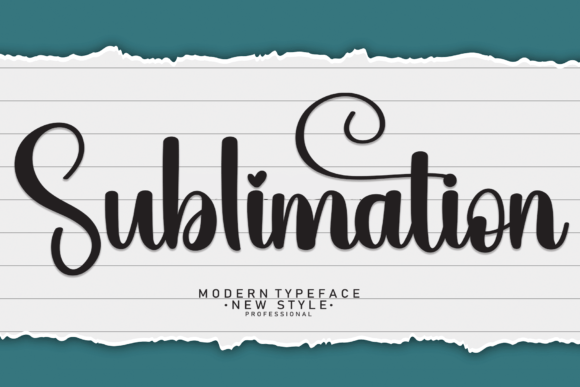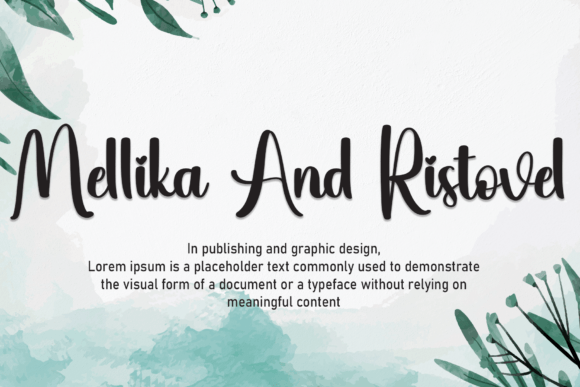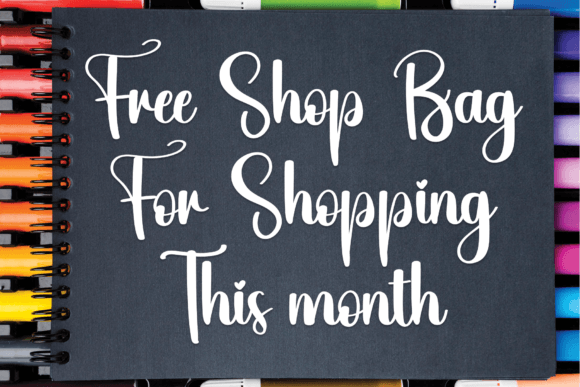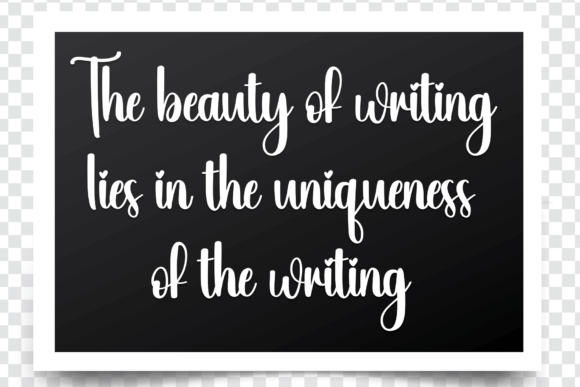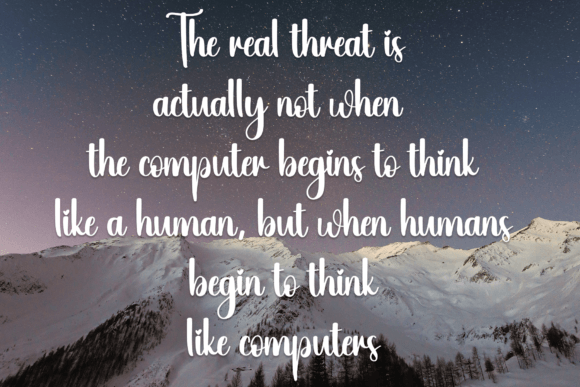
Add Unique Elegance with Sublimation Font
The Sublimation font is a unique and elegant handwritten script designed to add a personalized and sophisticated touch to your creative projects. Its beautiful and flowing letterforms make it ideal for designs that require individuality and charm. Whether you’re creating wedding invitations, thank you cards, greeting cards, logos, or other personalized materials, Sublimation elevates your work with style.
Perfect for Wedding Invitations, Cards, and Branding
The Sublimation font shines in a variety of applications including wedding stationery, thank you notes, branding projects, social media graphics, and product packaging. Its elegant style helps communicate emotion and personality, making your projects feel special and memorable.
A Handwritten Script Full of Personality
Each character in the Sublimation font is carefully crafted to ensure smooth flow and excellent readability. The font’s unique strokes and balanced design create harmonious compositions that enhance the beauty of your text.
Despite its decorative and unique nature, the Sublimation font maintains clear readability at various sizes. Whether used for headlines, logos, or smaller accents, it balances style with clarity, making it a versatile choice for many creative projects.
Make Your Designs Stand Out with Personalized Style